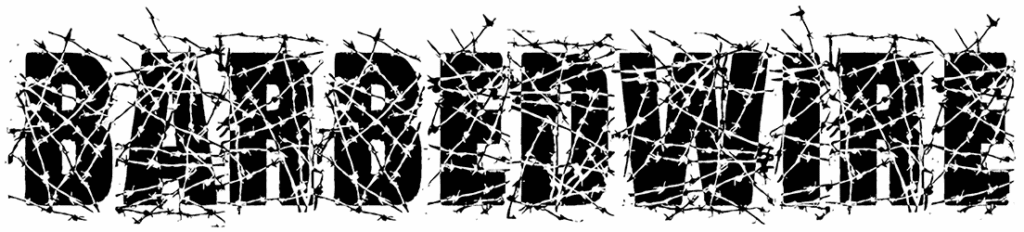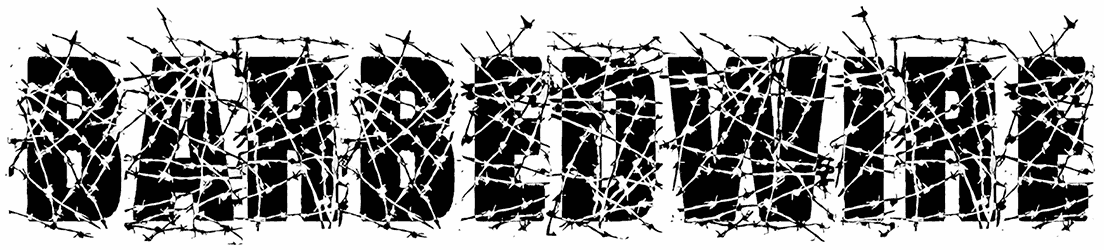
Barbedwire Font
Do you have a project with a military theme, war game, or something like that? Take a look at Barbedwire as a decorative font with a notable outward.
This barbed wire font with covered sans serif letters that contain two sets of uppercase, but you don’t have lowercase, numbers, and almost all of the punctuation. Barbedwire is a cool choice for flyers, wordmarks, illustrations, and many more creative designs.
Two versions, bold and bold italic!